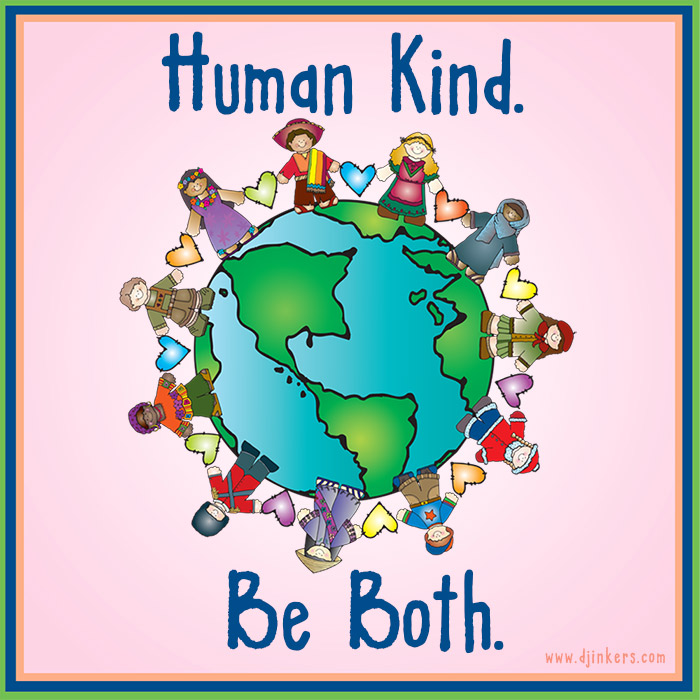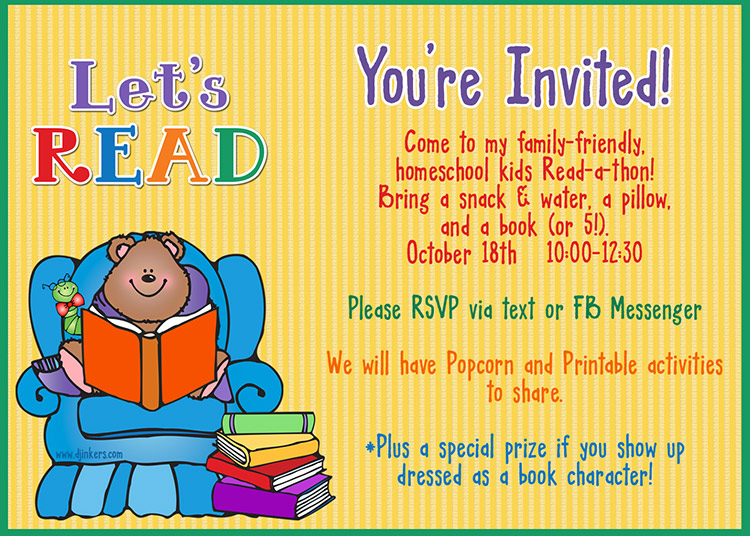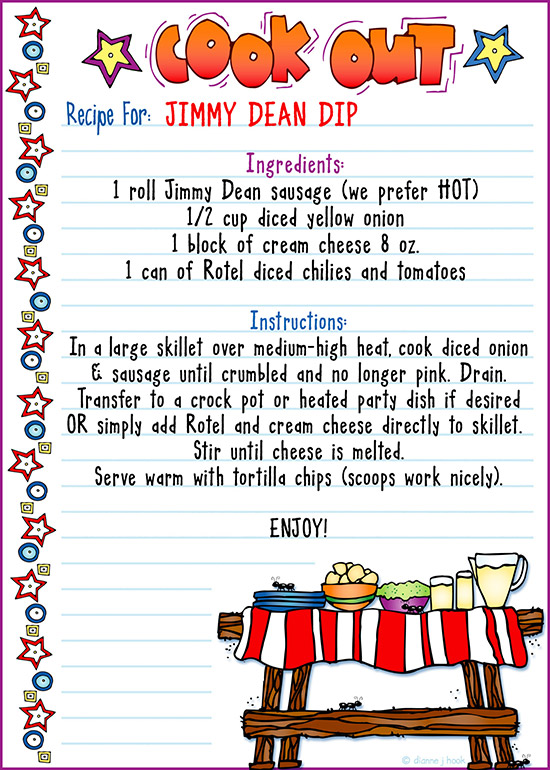
DJ Marker is a bold, fun font by DJ Inkers
Let DJ Inkers add a fun hand-written look to your lettering with our bold & simple DJ Marker font!  Type up your posters and fliers, letters and lists, classroom rules, favorite quotes and more... because it's awesome for text of any kind, in any size or color.  Enjoy!